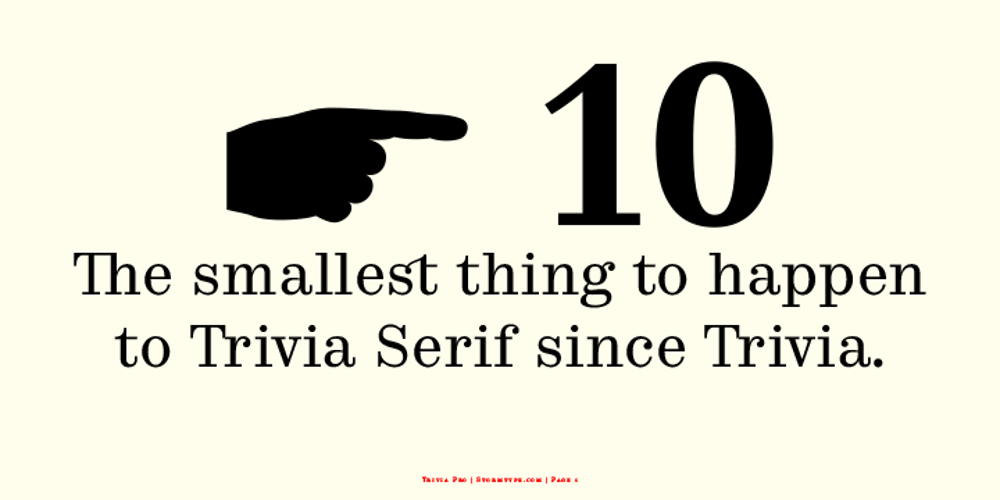
Trivia Serif 10
Trivia Serif 10 font
Trivia Serif 10 Font Family was designed by František Štorm and published by Storm Type Foundry. Trivia Serif 10 contains 4 styles and family package options. It’s an extension to the Trivia font system. Serif 10 has been meticulously adapted for sizes of about 10 points, to be used for all kinds of literature: magazines, newspapers, books, including large scientific volumes.